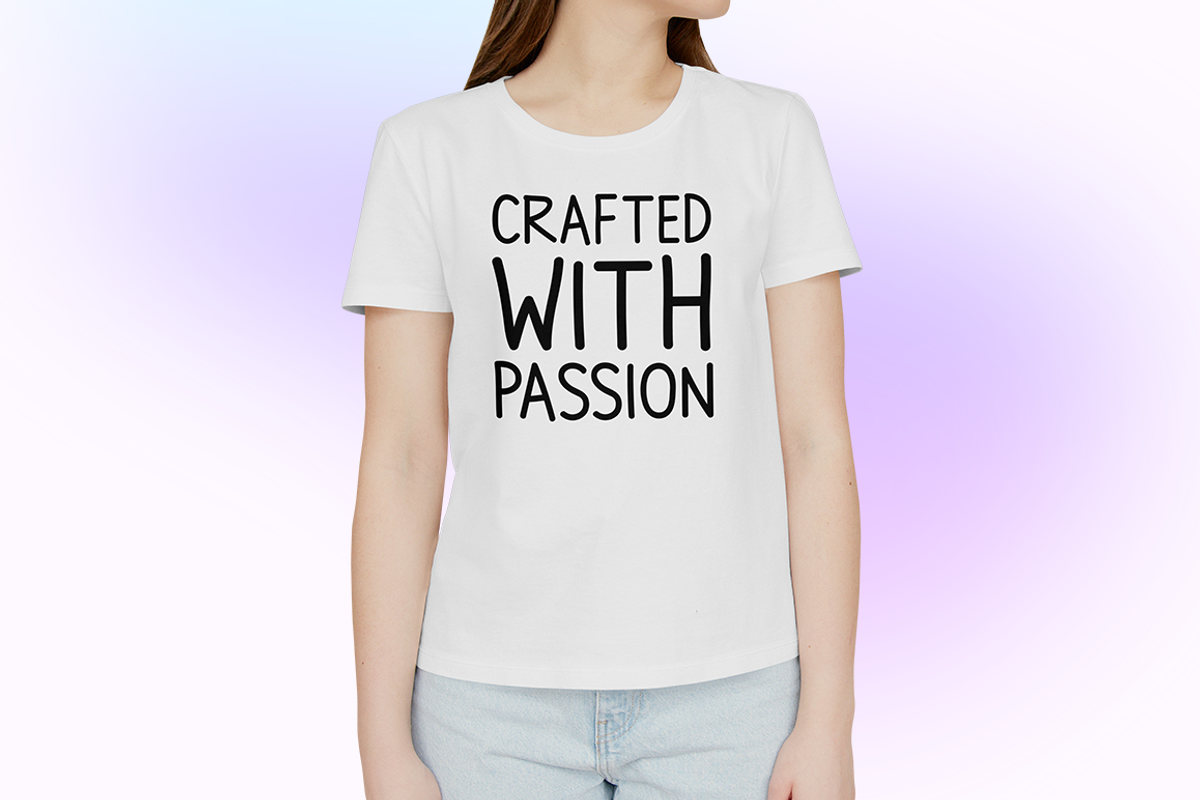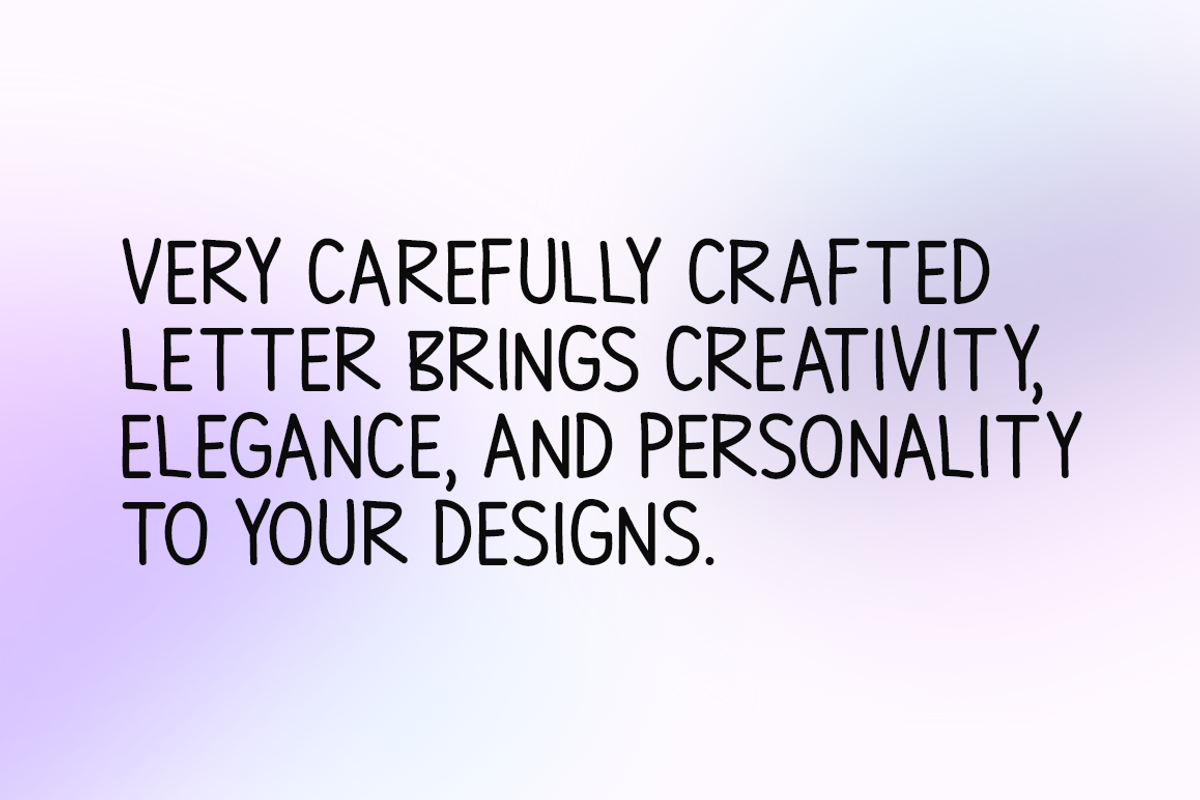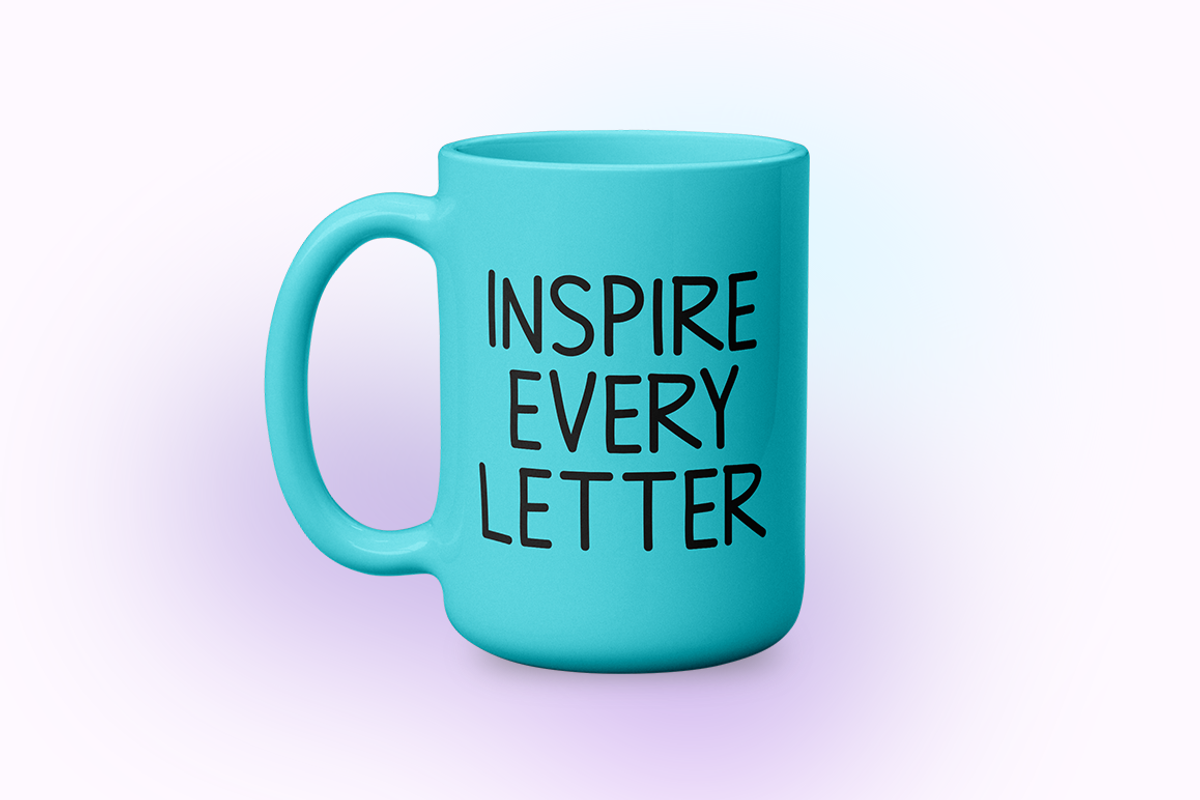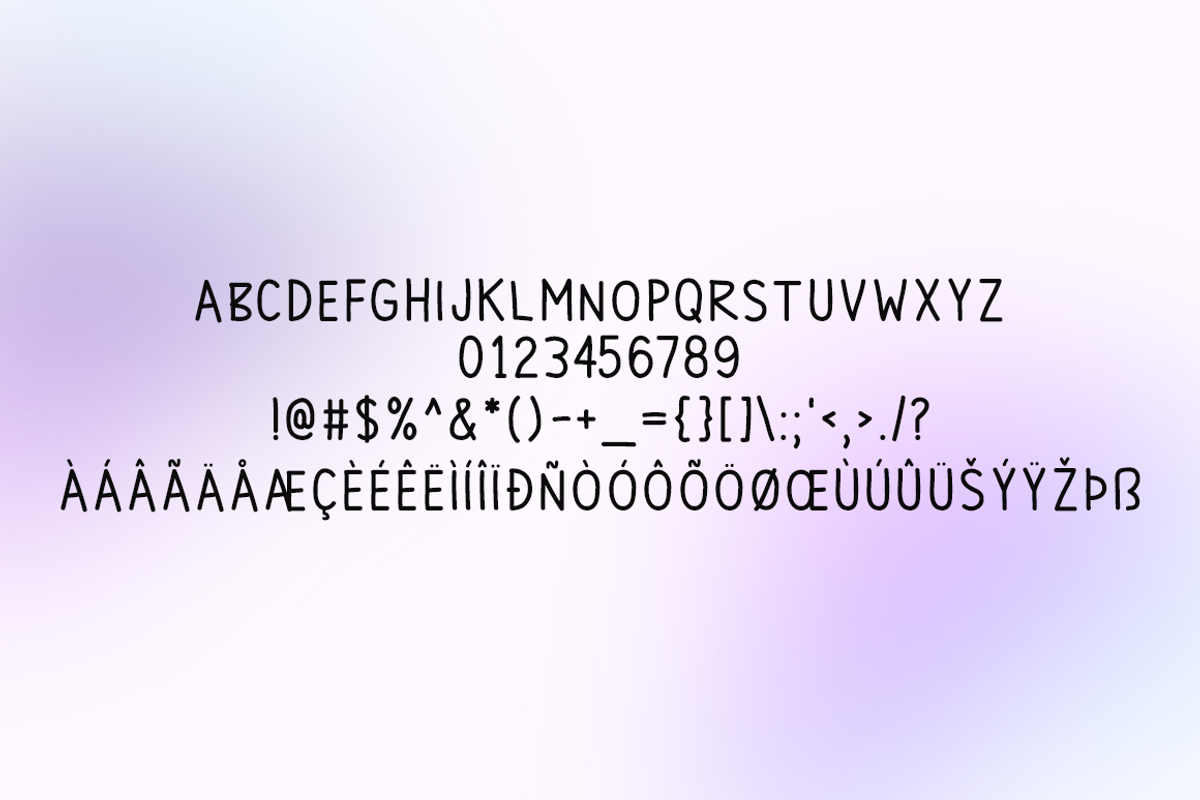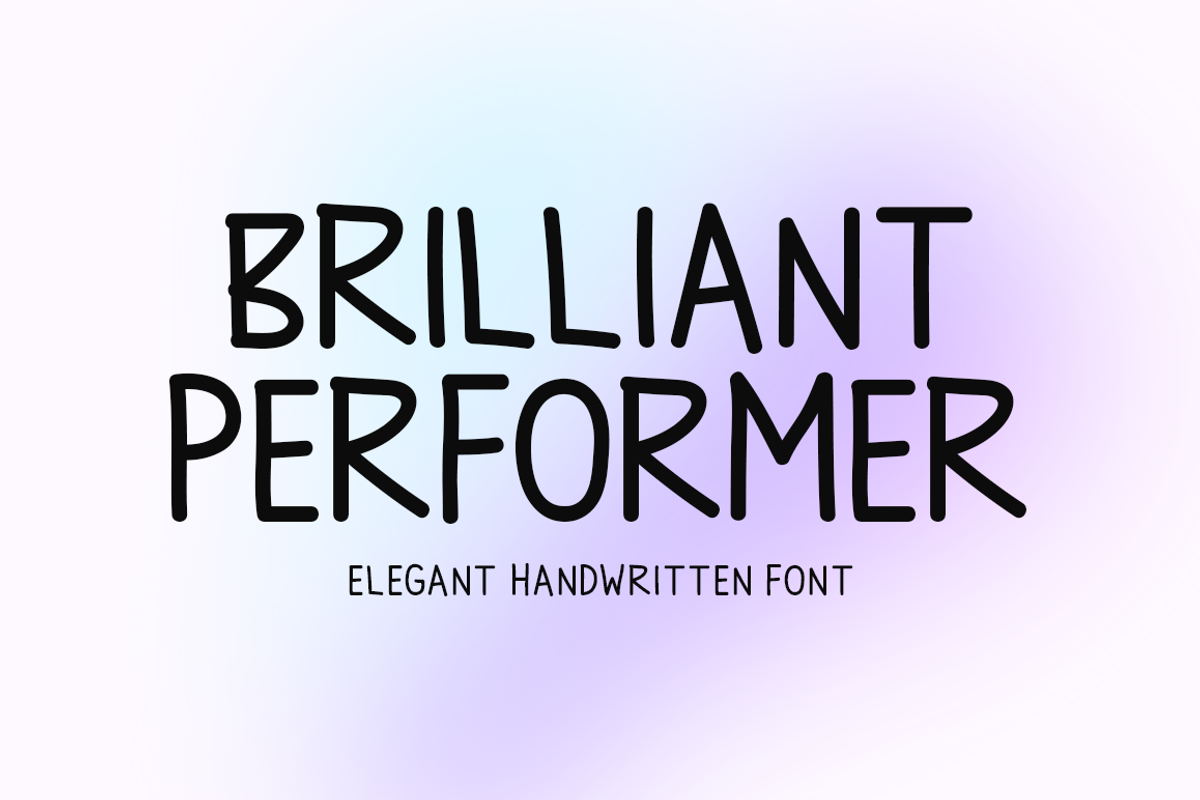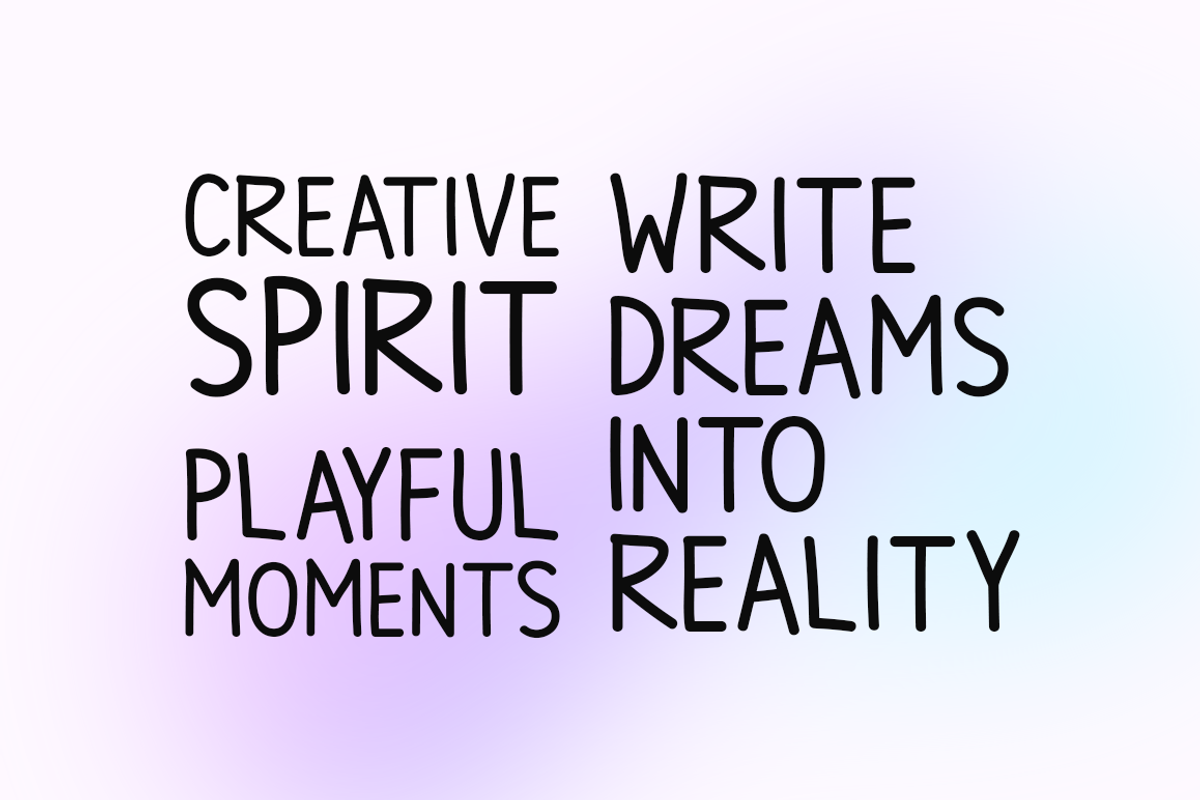
Brilliant Performer Typeface
Introducing Brilliant Performer!
Brilliant Performer is an elegant handwritten font designed to bring creativity and sophistication to every design project. Its smooth curves and natural strokes create a perfect balance between style and readability. Ideal for branding, invitations, logos, quotes, and social media graphics, this font adds an artistic touch. With its modern yet handcrafted feel, Brilliant Performer helps designers express emotion, elegance, and uniqueness in every creative composition.
Includes a range of multilingual support